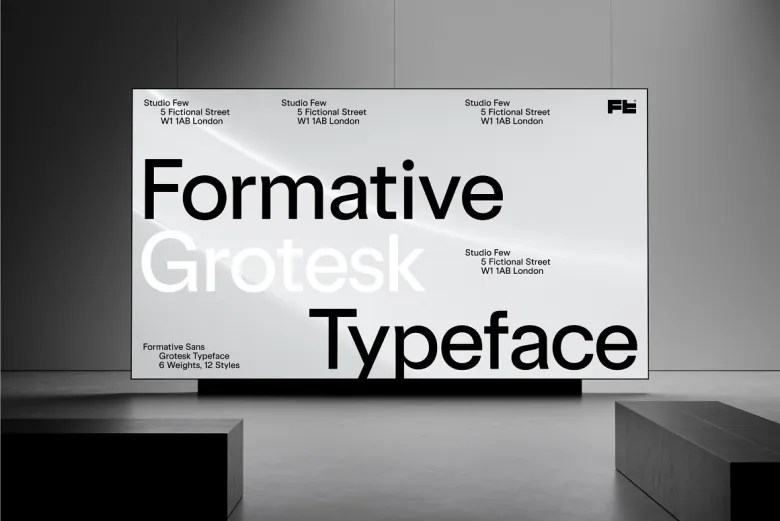
Formative Font
Explore Formative, a Geometric Grotesk Sans Serif Font Family that blends size and simplicity in a unique way. Inspired by the understated beauty of lesser-known 20th-century sans fonts, Formative features squared-off bowls and a sophisticated mix of straight and curved paths, resulting in an eye-catching grotesk that stands out.
Key Features:
• Geometric Design: Combines straight and curved elements for a modern look.
• Text-Style Terminals: Adds a distinctive touch to the font.
• Versatility: Suitable for a range of applications, from branding to editorial design.